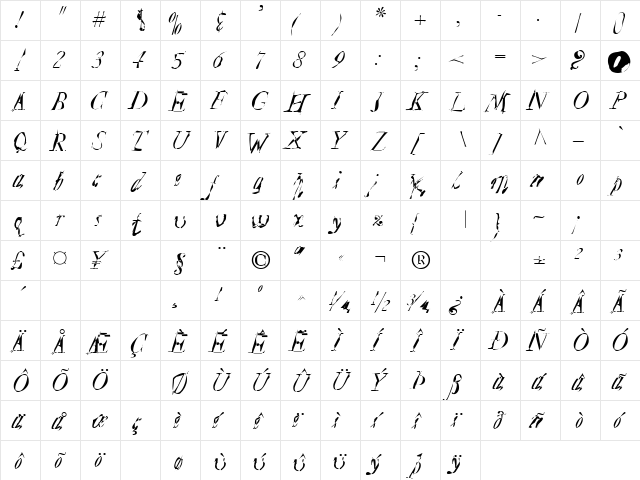
Plague Mass Regular
Design Context for Plague Mass Typeface
Plague Mass is a composed and adaptable typeface that performs quietly and consistently across a wide range of design contexts.